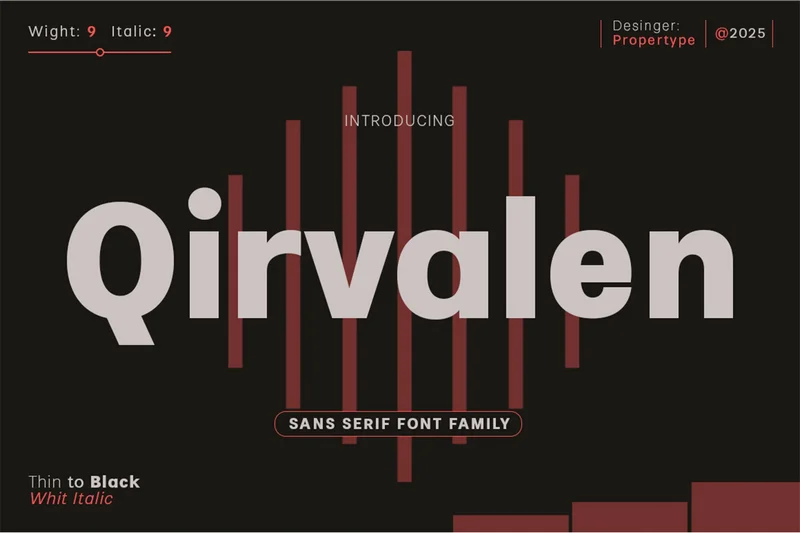
Qirvalen
Qirvalen is a modern, contemporary, harmonious, and stylish serif typeface. Equipped with variable fonts, Qirvalen expands its use by offering font weights ranging from Light to Extra Bold, creating a warm and soft design or look. Its entire character set supports over 200 Latin languages.
This versatility makes Qirvalen a perfect choice for a variety of applications such as editorial design, headlines, branding projects, logo design, packaging, magazine titles, advertisements, and both short and long texts.